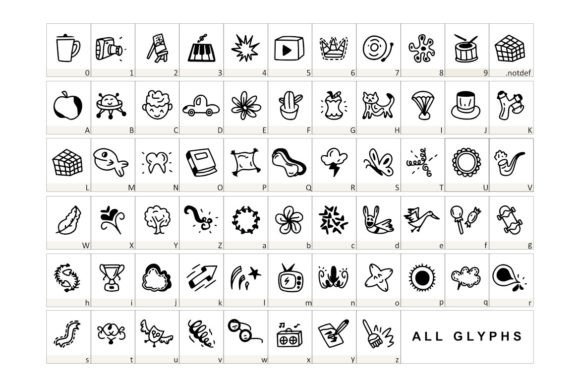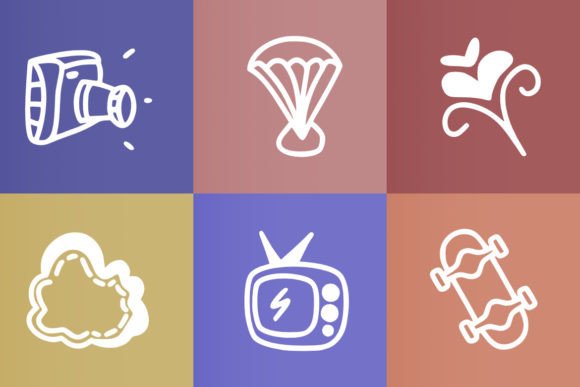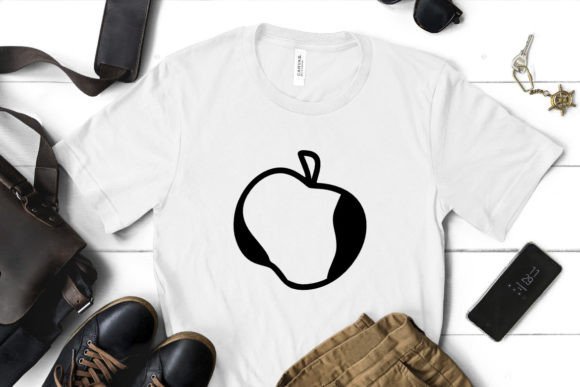
Introducing Classy Font: The Cute and Versatile Dingbats Font for Your Creative Projects
Are you a designer, crafter, or DIY enthusiast looking for a font that can add a touch of elegance and playfulness to your projects? Look no further than Classy Font, a delightful dingbats font that’s perfect for a wide range of creative endeavors. In this article, we’ll explore the features and benefits of Classy Font, and show you how it can elevate your designs to the next level.
What is Classy Font?
Classy Font is a unique and charming dingbats font that’s designed to bring a touch of sophistication and whimsy to your projects. With its clean lines, elegant curves, and adorable illustrations, Classy Font is the perfect choice for anyone looking to add a bit of personality to their designs. Whether you’re creating stickers, posters, t-shirts, cards, or apparel graphics, Classy Font is sure to delight.
Key Features of Classy Font
• Cute and Versatile: Classy Font features a wide range of adorable illustrations and symbols that can be used in a variety of contexts. From cute animals to elegant borders, Classy Font has everything you need to create stunning designs.
• Elegant and Playful: With its clean lines and elegant curves, Classy Font strikes the perfect balance between sophistication and playfulness. Whether you’re creating designs for kids or adults, Classy Font is sure to appeal.
• Scalable: Classy Font is designed to be scalable, which means you can use it for projects of all sizes. Whether you’re creating a tiny sticker or a giant billboard, Classy Font will look great.
Why Choose Classy Font?
So why should you choose Classy Font for your next project? Here are just a few reasons:
• Unique and Eye-Catching: Classy Font is a one-of-a-kind font that’s sure to grab attention. With its adorable illustrations and elegant design, Classy Font is the perfect way to make your designs stand out.
• Time-Saving: With Classy Font, you don’t need to spend hours creating custom illustrations or searching for the perfect symbols. Classy Font has everything you need in one convenient package.
Project Ideas Using Classy Font
Classy Font is perfect for a wide range of projects, including:
• Stickers: Use Classy Font to create adorable stickers for kids, parties, or special occasions.
• Posters: Create eye-catching posters for events, promotions, or social media campaigns.
• T-Shirts: Design custom t-shirts for kids or adults using Classy Font.
• Cards: Create beautiful greeting cards for birthdays, holidays, or special occasions.
• Apparel Graphics: Use Classy Font to create stunning apparel graphics for brands, teams, or events.
In conclusion, Classy Font is a cute and versatile dingbats font that’s perfect for designers, crafters, and DIY enthusiasts. With its elegant design, adorable illustrations, and ease of use, Classy Font is the perfect choice for a wide range of creative projects. Whether you’re creating stickers, posters, t-shirts, or cards, Classy Font is sure to delight. So why wait? Download Classy Font today and start creating stunning designs that will leave a lasting impression!